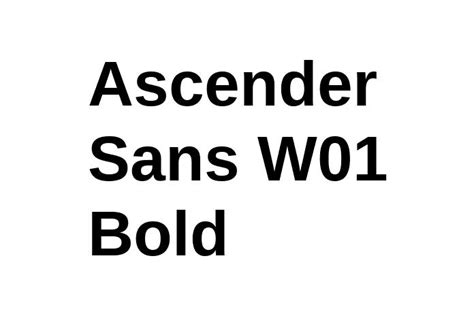
Ascender Sans: Your Ultimate Guide To A Versatile Font
Ascender Sans: Your Ultimate Guide to a Versatile Font
Alright guys, let’s dive deep into the fascinating world of typography and shine a spotlight on a particular gem: Ascender Sans . This isn’t just any font; it’s a remarkably versatile sans-serif typeface that has quietly, yet powerfully, made its mark across various design disciplines. When we talk about Ascender Sans , we’re really talking about a family of fonts known for its exceptional legibility, clean lines, and a friendly, approachable aesthetic that makes it a go-to choice for designers and developers alike. Whether you’re a seasoned professional or just starting your journey in graphic design, understanding the nuances of this font can significantly elevate your projects. It’s about more than just picking a pretty font; it’s about choosing a typeface that communicates effectively, enhances readability, and leaves a lasting positive impression. This comprehensive guide is designed to walk you through everything you need to know about Ascender Sans , from its historical roots and design philosophy to practical tips on how to wield its power in your next creative endeavor. We’ll explore its unique characteristics, compare it to other popular sans-serif giants, and give you the lowdown on why it deserves a spot in your font library. So, buckle up, because by the end of this article, you’ll be an Ascender Sans connoisseur, ready to apply its magic to your websites, print materials, branding, and so much more. This isn’t just theory; we’re talking about real-world application that can make a tangible difference in how your message is perceived. We’ll cover why its balanced letterforms and open counters contribute to its widespread appeal, ensuring that even complex textual information remains easily digestible for your audience. Trust me, folks, mastering a font like Ascender Sans is a valuable skill in today’s visually-driven world, and we’re here to help you unlock its full potential.
The Design Philosophy Behind Ascender Sans
When we talk about the design philosophy behind Ascender Sans , we’re really peeling back the layers to understand what makes this sans-serif font tick and why it feels so inherently balanced and readable. Ascender Sans was meticulously crafted with an eye towards optimal legibility and a modern, clean aesthetic , aiming to be a workhorse font that performs exceptionally well across diverse mediums and resolutions. Its creators envisioned a typeface that would be incredibly versatile, capable of being used effectively in everything from large display headlines to small body text, both in print and on digital screens. This underlying philosophy guided every curve, line, and stroke, ensuring that each character contributes to an overall sense of harmony and clarity. The goal wasn’t to create something flashy or overly ornate, but rather a robust, functional, and aesthetically pleasing font that could stand the test of time and adapt to evolving technological demands. They focused on open counters, generous x-height, and well-proportioned letterforms to combat the common pitfalls of sans-serif fonts, such as cramped spacing or difficult-to-distinguish characters. This meticulous attention to detail means that Ascender Sans delivers a consistently clear reading experience, making it a fantastic choice for user interfaces, long-form articles, and crucial information dissemination where clarity is paramount. Its design roots are planted firmly in the tradition of classic humanist sans-serifs, yet it incorporates modern sensibilities that prevent it from feeling dated. The philosophy is all about creating an accessible and understated elegance, allowing the content to truly shine without the font itself becoming a distraction. It’s about empowering designers with a reliable tool that minimizes visual fatigue and maximizes comprehension, a testament to its thoughtful construction. This makes Ascender Sans not just a font, but a strategic asset in your design toolkit, built on principles of functionality, clarity, and enduring appeal.
Key Characteristics and Features
Let’s get down to the nitty-gritty and explore the key characteristics and features that make Ascender Sans such a standout choice in the crowded world of sans-serif fonts. Understanding these specific attributes will help you appreciate why it consistently delivers on its promise of versatility and readability. First and foremost, Ascender Sans boasts a generous x-height , which is the height of the lowercase letters (like ‘x’) relative to the uppercase letters. This generous x-height is a critical factor in enhancing readability, especially at smaller sizes and on digital screens, as it ensures that the body of the letters is prominent and easy to distinguish. Coupled with this, you’ll notice its open counter forms , which refer to the enclosed or partially enclosed negative space within letters such as ‘a,’ ‘o,’ ‘e,’ and ‘p.’ These open spaces prevent characters from looking cramped or ‘muddy’ when rendered at smaller point sizes or in lower resolutions, contributing significantly to its clarity. The letterforms themselves are clean and crisp , exhibiting a wonderful balance between geometric precision and subtle humanist warmth. This isn’t a cold, strictly geometric sans-serif; it has a touch of humanistic nuance that gives it a friendly and approachable feel without sacrificing professionalism. You’ll also find that Ascender Sans features well-proportioned strokes and consistent stroke widths across its character set, which further aids in its legibility and creates a harmonious visual rhythm when reading. Many versions of Ascender Sans also come with a comprehensive character set , often including a wide range of Latin, Cyrillic, and Greek glyphs, as well as various weights (light, regular, semi-bold, bold) and styles (italic), making it incredibly adaptable for global communication and diverse design requirements. This extensive character support means that you’re not limited in your linguistic or stylistic choices, providing true flexibility for international projects. Furthermore, its careful hinting, especially in digital formats, ensures that it renders beautifully and clearly even on complex displays, combating pixelation and blur. From a designer’s perspective, these characteristics translate into a font that is not only aesthetically pleasing but also highly functional, a truly reliable choice for projects where clarity and professional appearance are paramount. The consistent spacing and balanced kerning also play a huge role here, meaning less manual adjustment work for you, the designer, which is always a win! Its overall design gives off a vibe of understated professionalism, making it suitable for corporate branding, educational materials, and any context where trust and clarity are key.
Why Choose Ascender Sans? Its Versatility and Applications
So, why should you, my friends, make Ascender Sans a go-to font in your design arsenal? The answer, plain and simple, lies in its unparalleled versatility and broad range of applications . This isn’t a niche font designed for one specific purpose; it’s a true workhorse that can seamlessly transition between vastly different contexts, always delivering a professional and highly readable outcome. For starters, Ascender Sans shines brightly in web design . Its clean lines and excellent legibility make it a fantastic choice for body text on websites, ensuring that users can comfortably read long articles, product descriptions, or terms and conditions without experiencing eye strain. Its optimized rendering on screens, thanks to careful hinting, means it looks crisp and clear across various devices and browsers, which is absolutely crucial for a positive user experience. Beyond body text, its diverse weights also make it perfect for headlines, navigation menus, and call-to-action buttons, providing a consistent and cohesive visual identity throughout a digital platform. But its utility isn’t limited to the digital realm. In print design , Ascender Sans truly excels. Think about professional reports, brochures, magazines, books, and even packaging. Its clarity and balanced letterforms ensure that printed materials look sophisticated and are easy to consume, regardless of the print quality or paper stock. For corporate branding and identity , Ascender Sans offers a perfect blend of modern appeal and trustworthiness. It projects an image of reliability and professionalism, making it an excellent choice for logos, business cards, letterheads, and all forms of corporate communication. Its neutrality allows it to pair well with more expressive fonts or complement brand-specific color palettes without clashing. Educational institutions, government bodies, and non-profits often gravitate towards Ascender Sans because its understated elegance and high readability communicate information effectively and without bias. Furthermore, in user interface (UI) design for applications and software, its legibility at small sizes and consistent appearance contribute to an intuitive and accessible user experience. From mobile apps to complex desktop software, Ascender Sans helps to ensure that all critical information, labels, and interactive elements are immediately comprehensible. Its versatility extends even to signage and environmental graphics, where clear and concise communication from a distance is paramount. The ability of Ascender Sans to maintain its aesthetic integrity and readability across such a wide spectrum of uses is precisely why it’s considered a top-tier sans-serif. It reduces the need for multiple font families in a single project, streamlining your design process and ensuring a harmonious visual language across all touchpoints. Essentially, Ascender Sans is like that dependable friend who’s always there for you, no matter the situation, consistently delivering top-notch performance and making your design life a whole lot easier. You can rely on it for everything from a serious academic paper to a playful blog post, knowing it will adapt and perform beautifully.
How to Effectively Use Ascender Sans in Your Projects
Okay, now that we’ve gushed about the amazing qualities of Ascender Sans , let’s talk practicalities, guys: how to effectively use Ascender Sans in your projects to really make it shine. It’s one thing to know a font is good; it’s another to wield it like a pro. The first and perhaps most crucial tip is to leverage its inherent readability for body text . Given its generous x-height and open counters, Ascender Sans is an absolute superstar for long-form content. Whether you’re designing a blog post, an e-book, a lengthy report, or even just the fine print on a legal document, using Ascender Sans for your primary text ensures that your audience can comfortably read and absorb the information without unnecessary eye strain. Pair this with appropriate line spacing (leading) and paragraph spacing, and you’ve got a recipe for textual clarity. Secondly, don’t be afraid to experiment with its various weights for hierarchy . Most Ascender Sans families come with a range of weights, from light to bold or even extra-bold. This isn’t just for show! Use the lighter weights for subtle secondary information or elegant headlines, the regular weight for standard body text, and the bolder weights to create strong visual hierarchy for headlines, call-to-actions, or emphasized statements. This strategic use of weight can guide your reader’s eye and highlight key information, making your design both aesthetically pleasing and functionally effective. Another powerful technique is to combine Ascender Sans with a contrasting serif font for a classic look . While Ascender Sans is incredibly versatile on its own, pairing it with a well-chosen serif font for headlines or specific accents can add a touch of sophistication and visual interest. Imagine a powerful serif headline paired with crisp Ascender Sans body text – it’s a timeless combination that works wonders. Just be sure the serif font you choose complements, rather than competes with, the clean lines of Ascender Sans . Think about contrast in style but harmony in mood. Furthermore, consider its application in branding and UI/UX design . For logos and user interfaces, the clean, modern, and friendly vibe of Ascender Sans is a huge asset. It helps create a sense of trust and professionalism while being highly functional at small sizes, making it perfect for app buttons, navigation labels, and interactive elements. Remember to maintain consistent usage across your brand’s touchpoints to build a strong, recognizable identity. Lastly, always test your Ascender Sans usage across different mediums and devices . What looks great on your high-resolution desktop screen might look slightly different on a mobile device or in print. Adjust letter spacing (kerning) and line height as needed to ensure optimal readability and visual appeal in all contexts. By following these tips, you’ll be well on your way to mastering Ascender Sans and leveraging its full potential to create truly impactful and engaging designs. It’s all about conscious choices, guys, and making this font work for your message, not just with it. Use it wisely, and it will elevate your design game significantly, guaranteeing a polished and professional outcome every single time.
Ascender Sans vs. Other Sans-Serif Giants
Alright, let’s get into a bit of a friendly comparison, shall we? When discussing Ascender Sans , it’s natural to wonder how it stacks up against some of the other sans-serif giants that dominate the typography landscape. Fonts like Helvetica, Arial, Open Sans, Roboto, and Lato are ubiquitous, and each has its own devoted following and distinct characteristics. So, where does Ascender Sans fit into this esteemed company, and what makes it unique? While fonts like Helvetica are renowned for their strict neutrality and geometric precision, Ascender Sans often feels a touch warmer and more approachable . Helvetica, for all its timeless appeal, can sometimes feel a bit too rigid or corporate in certain contexts. Ascender Sans , with its subtle humanist influences and slightly more open letterforms, often strikes a better balance between professionalism and friendliness, making it less sterile and more inviting for readers. Then there’s Arial , which is often considered the default web sans-serif, largely due to its widespread availability. However, Arial is often criticized for its somewhat less refined letterforms and often wider, less elegant proportions compared to Helvetica or more thoughtfully designed sans-serifs. Ascender Sans , on the other hand, boasts a more carefully crafted appearance, with better character spacing and more harmonious proportions, offering a superior reading experience and a more polished aesthetic. It simply looks more professional and considered. When we look at Open Sans or Roboto , which are hugely popular for web and mobile interfaces, we find closer competition. These fonts, like Ascender Sans , were designed with digital legibility in mind, featuring good x-heights and open counters. However, Ascender Sans often presents a slightly more classic or timeless feel, without being overtly trendy. While Open Sans and Roboto are fantastic modern choices, Ascender Sans can sometimes offer a subtly different flavor, perhaps a touch more elegant or understated, making it a great alternative if you want to differentiate your design while maintaining similar levels of functionality and clarity. Lato , another popular humanist sans-serif, shares some similarities in its friendly and readable nature. However, Ascender Sans typically maintains a slightly more consistent and perhaps slightly less idiosyncratic personality, making it a very safe yet elegant choice for broad application. The key takeaway here, folks, is that while these other giants are undeniably powerful and effective, Ascender Sans carves out its own niche by offering a blend of classic readability, modern clarity, and an understated, warm professionalism . It’s often the choice when you want something incredibly reliable and versatile, but with a touch more character and refinement than the most common system fonts, without being overly distinctive or distracting. It often feels like a highly optimized version of a classic, making it a powerful contender that holds its own among the very best. It’s truly a testament to thoughtful typographic design, proving that you can achieve both widespread appeal and exceptional quality. So, next time you’re contemplating a sans-serif, don’t overlook Ascender Sans – it might just be the perfect fit you didn’t even know you were looking for!
The Future of Ascender Sans and Digital Typography
As we look ahead, the future of Ascender Sans , much like the broader landscape of digital typography , appears to be one of continued evolution, adaptability, and an ever-increasing emphasis on user experience. In a world where digital screens dominate our daily interactions, the demand for highly legible, versatile, and aesthetically pleasing fonts like Ascender Sans will only grow stronger. One significant aspect of this future lies in variable fonts . While not every Ascender Sans version is currently available as a variable font, the trend towards single font files that can encompass an entire range of weights, widths, and optical sizes is revolutionary. Imagine having a single Ascender Sans file that can smoothly transition from light to bold, or from condensed to extended, providing unprecedented flexibility for designers. This capability allows for more precise control over typography, enabling designers to optimize text for any screen size or resolution, from smartwatches to giant billboards, all while maintaining minimal file sizes. This will further enhance Ascender Sans ’s already impressive versatility, making it even more powerful in responsive design environments. Another crucial area is accessibility . As digital content becomes more pervasive, ensuring that typography is accessible to everyone, including those with visual impairments, is paramount. Fonts with clear letterforms, generous x-heights, and good contrast, like Ascender Sans , are inherently well-suited for accessibility guidelines. Future developments will likely involve even more refined hinting and rendering technologies that ensure optimal clarity across a wider range of assistive technologies and display settings. We can also anticipate Ascender Sans expanding its language support even further. With a globalized digital landscape, fonts that can fluently communicate in multiple scripts and languages are invaluable. While many versions already offer extensive character sets, continuous expansion to include less common scripts and nuanced linguistic characters will make Ascender Sans an even more universal tool for global communication. Furthermore, the role of AI and machine learning in typography is emerging. While this might sound futuristic, AI could assist in optimizing font rendering, suggesting ideal font pairings, or even auto-adjusting font properties for specific reading conditions. For a well-established and well-designed font like Ascender Sans , this could mean an even more seamless and intuitive integration into design workflows. Ultimately, the future of Ascender Sans is inextricably linked to the ongoing advancements in display technology, web standards, and user expectations. Its robust design, built on principles of clarity and versatility, positions it perfectly to adapt and thrive in these evolving conditions. It will continue to be a go-to choice for designers who prioritize readability, professionalism, and a timeless aesthetic, ensuring its relevance for many years to come. The emphasis will remain on creating seamless reading experiences, and Ascender Sans is brilliantly poised to lead that charge.
Conclusion
So there you have it, folks! We’ve journeyed through the world of Ascender Sans , from its thoughtful design philosophy to its impressive versatility and practical applications, and even peered into its promising future. It’s clear that this isn’t just another font; it’s a meticulously crafted sans-serif typeface that truly stands out in a crowded digital and print landscape. We’ve seen how its key characteristics – the generous x-height , open counters , and clean, balanced letterforms – all contribute to its exceptional legibility and friendly yet professional demeanor. These aren’t just technical specifications; they are the fundamental elements that make Ascender Sans a reliable choice for anyone needing to communicate clearly and effectively. Whether you’re designing a high-stakes corporate report, a vibrant website, a user-friendly mobile app, or a beautiful print magazine, Ascender Sans offers a robust and elegant solution. Its ability to maintain clarity and aesthetic appeal across diverse mediums and at various sizes makes it an indispensable tool for designers, developers, and content creators alike. We’ve also touched upon how it holds its own against other sans-serif giants, often offering a warmer, more refined alternative without sacrificing any of the functional benefits. Remember, guys, choosing the right font is a powerful design decision, and understanding the nuances of typefaces like Ascender Sans empowers you to make informed choices that elevate your projects. It’s about more than just aesthetics; it’s about enhancing readability, building trust, and creating an engaging experience for your audience. So, next time you’re staring at your font list, don’t just scroll past Ascender Sans . Give it a try, experiment with its weights and styles, and watch how it transforms your content into something truly remarkable. It’s a font that delivers on its promises, ensuring your message is not just seen, but truly understood. Happy designing!